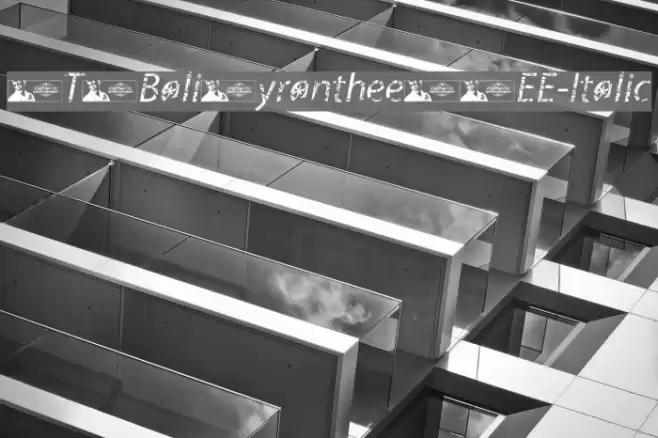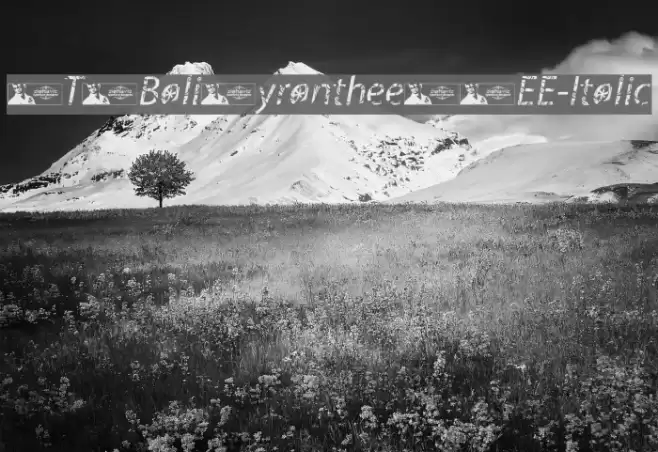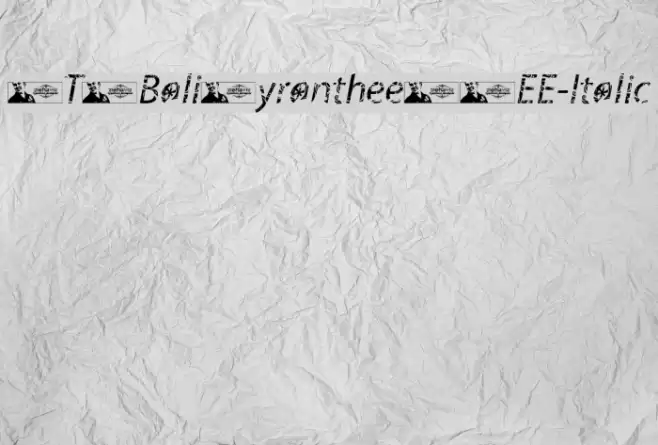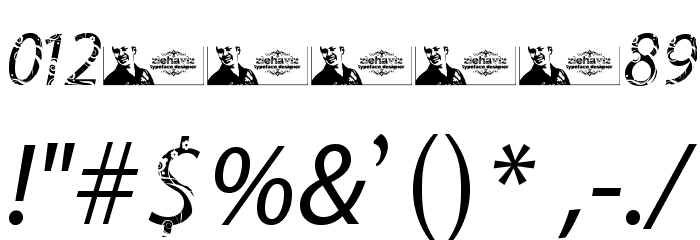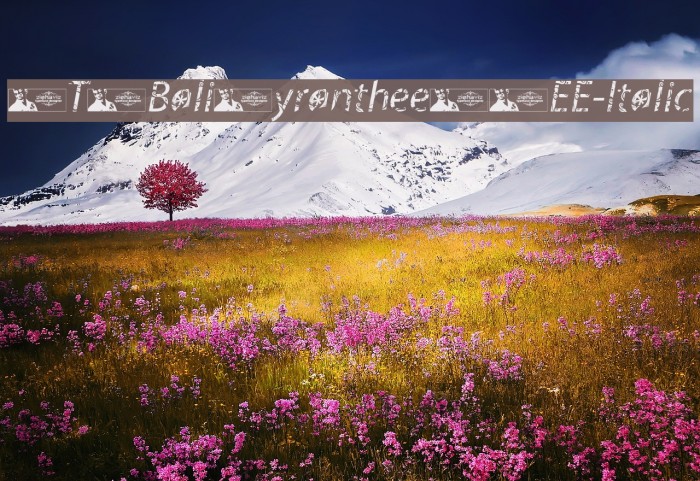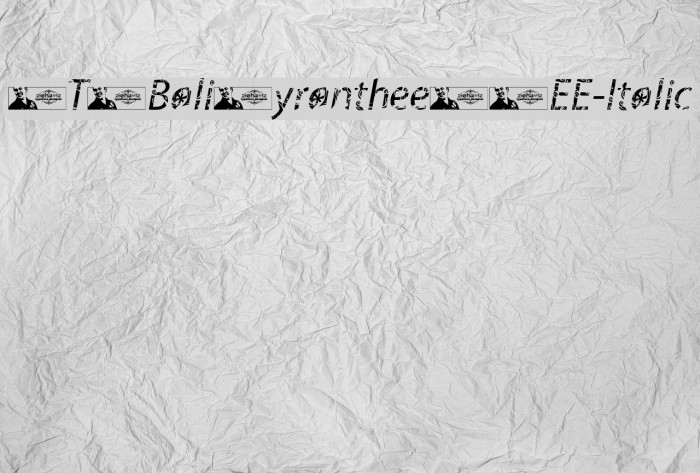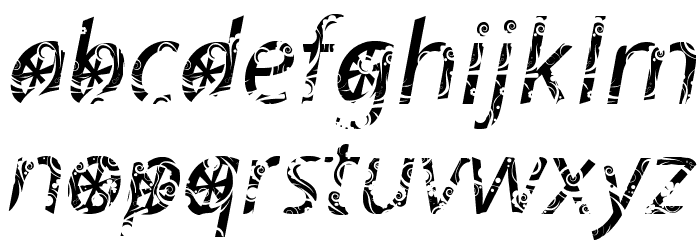
FTFBaliMyrantheeFREE-Italic Font
FTFBaliMyrantheeFREE-Italic Description
This font features a unique decorative style with intricate patterns embedded within each character, creating a visually striking appearance. The design incorporates swirling motifs and abstract shapes, giving it an artistic and dynamic feel. The italic slant adds a sense of movement and elegance, making it suitable for creative and expressive projects. The characters are well-defined, with a consistent pattern throughout, ensuring readability while maintaining its decorative nature. This font is ideal for projects that require a bold and artistic statement, such as posters, album covers, or branding materials that aim to capture attention and convey creativity.
A decorative italic font with intricate patterns and artistic flair from Uncategorized fonts.